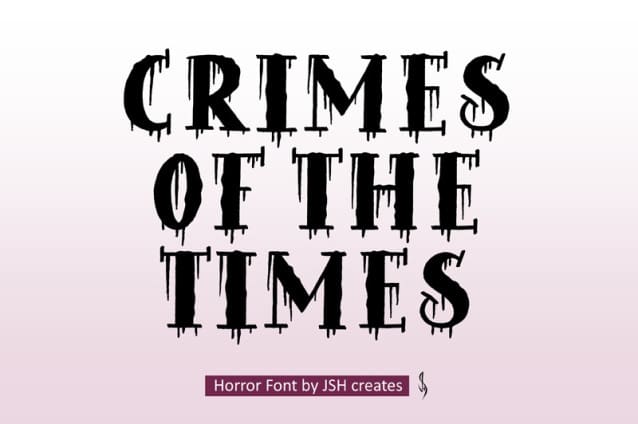
Crimes Of The Times Font
Crimes Of The Times Font, Cool horror font.  Perfect for advertising and display purposes, including banners, book covers, shirts, posters, logos and much more!